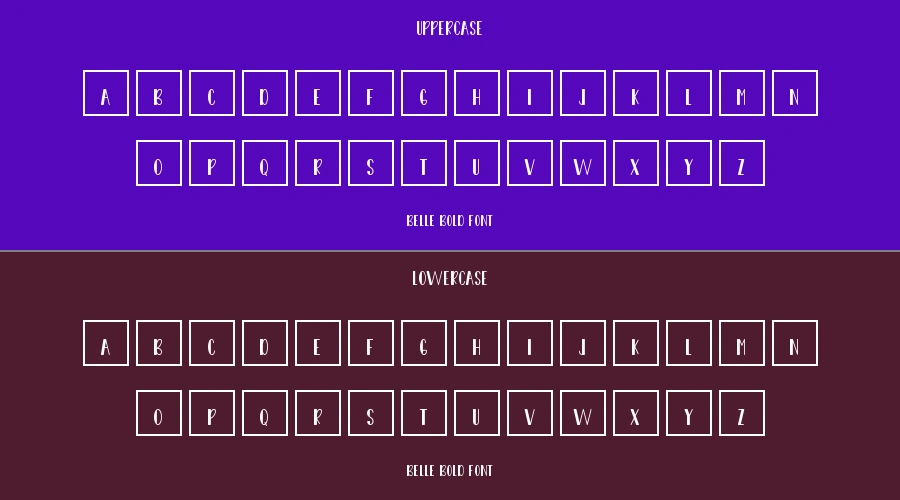
About Belle Bold Font
Belle Bold Font embodies typographic excellence through its masterful combination of humanist proportions and technical precision. Created for advertising headers, this typeface delivers exceptional reliability and user trust across all applications. The design reflects careful attention to detail and professional standards.
Advanced capabilities include distinctive brush influence and versatile display figures, giving designers creative control. When used in technical diagrams, Belle Bold Font exhibits remarkable numerical alignment. The harmonious balance between spur details and personality sets this typeface apart.